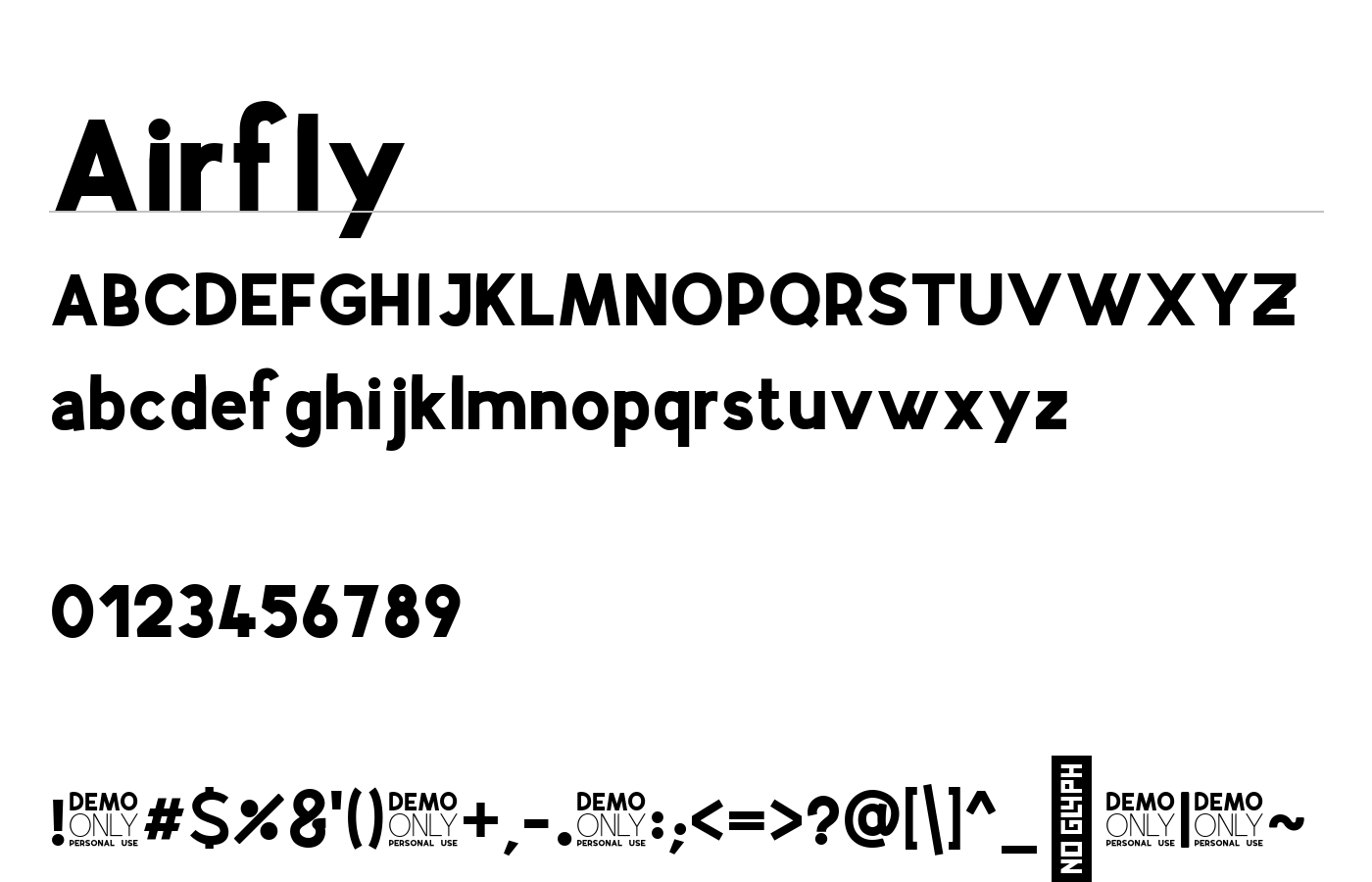
Airfly is a bold, geometric sans serif font with a modern and slightly playful character. It features strong weight, clean lines, and minimal contrast, making it highly legible and suitable for impactful headlines, logos, and branding that require a contemporary, confident look. Its distinctive letterforms add a unique personality while maintaining clarity, ideal for both digital and print use where boldness and style are key.
Airfly Font